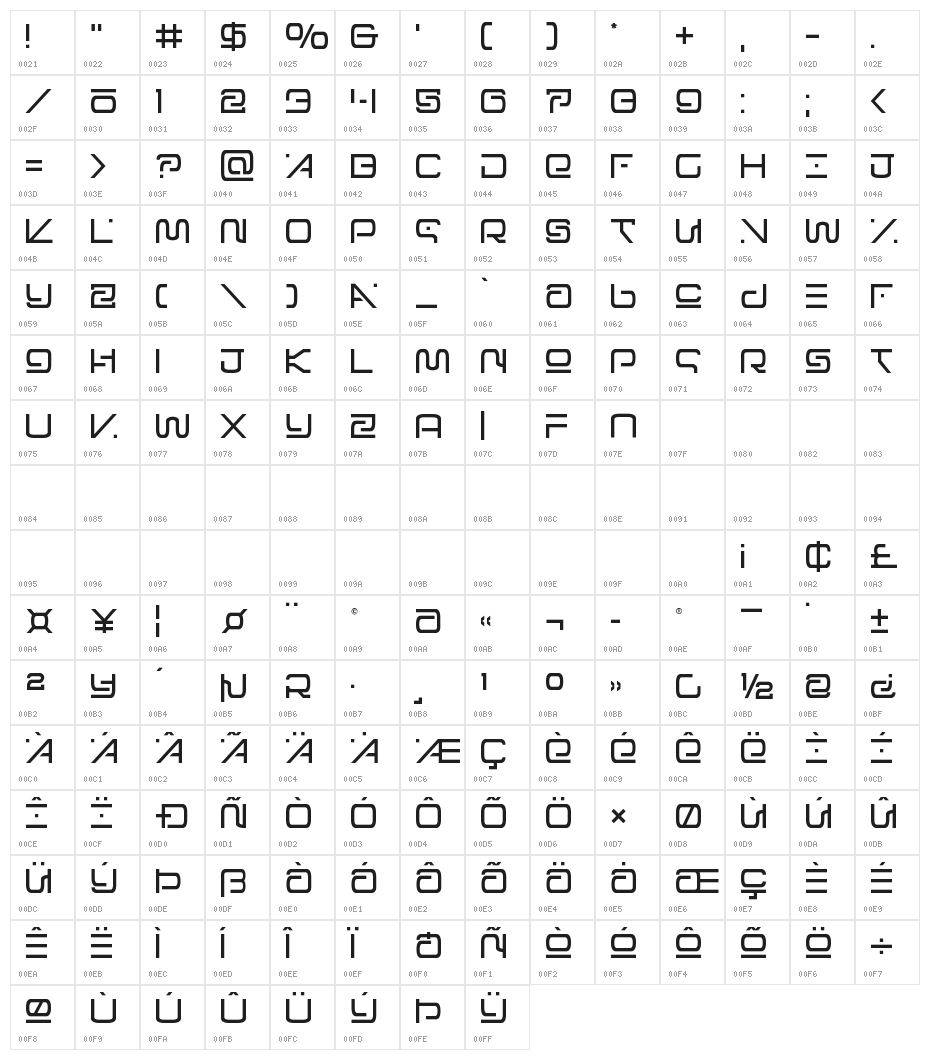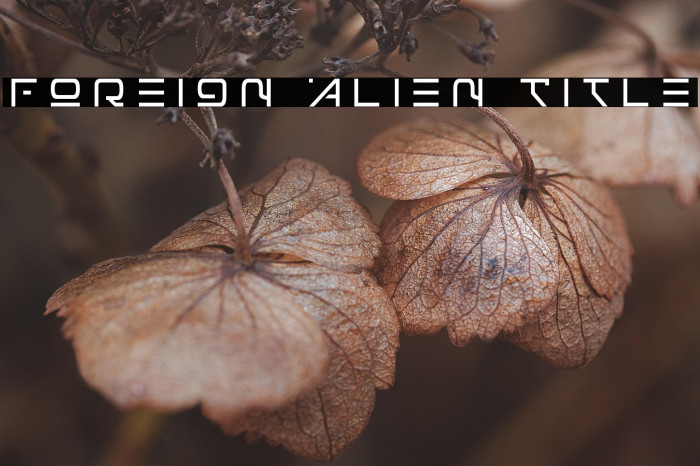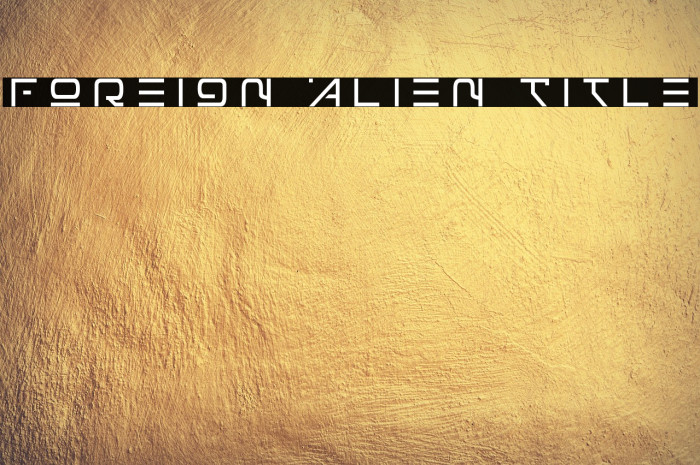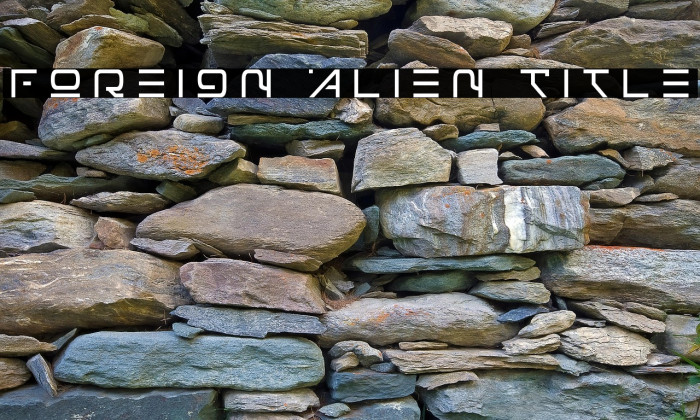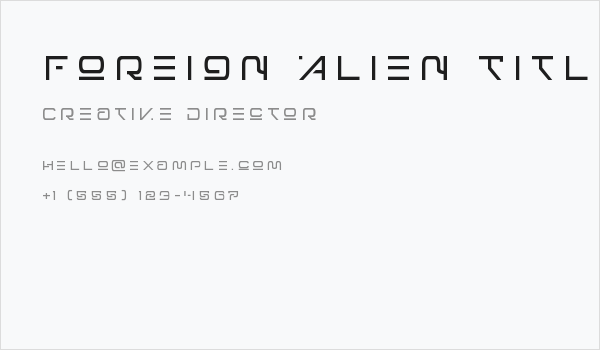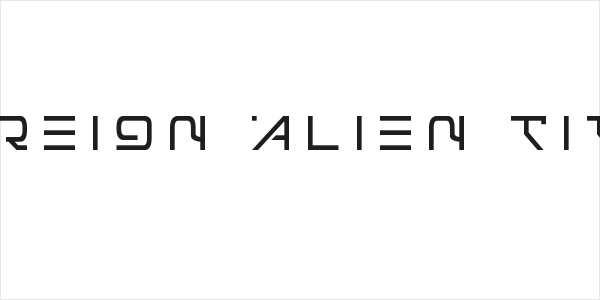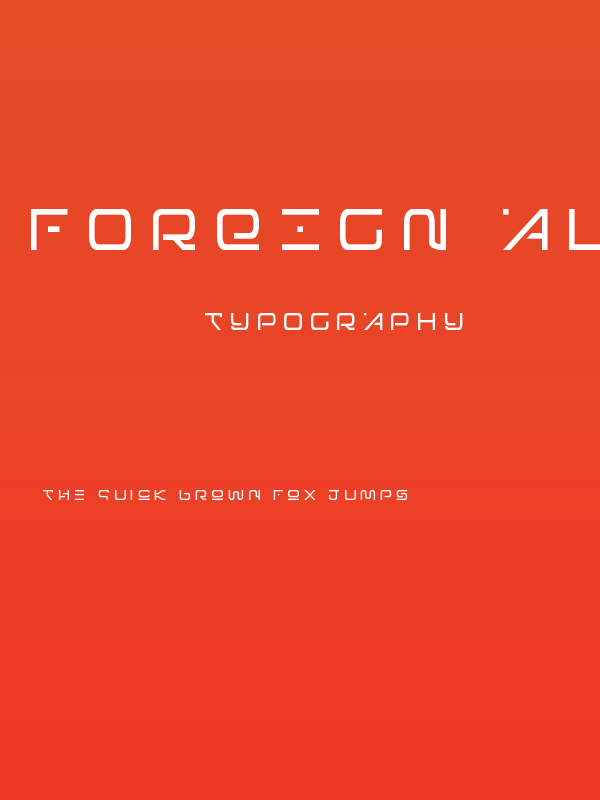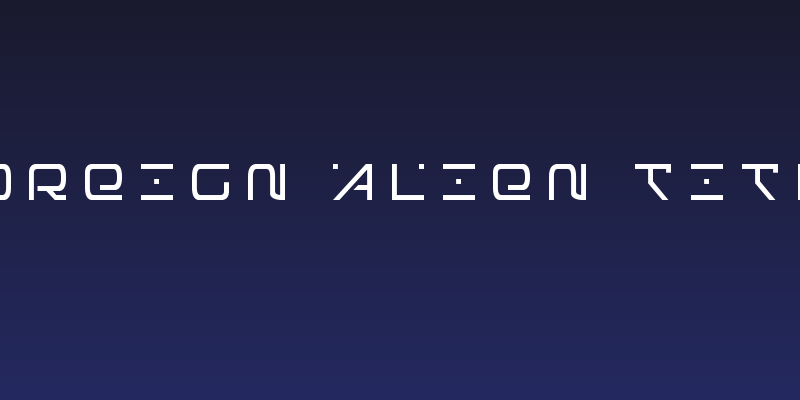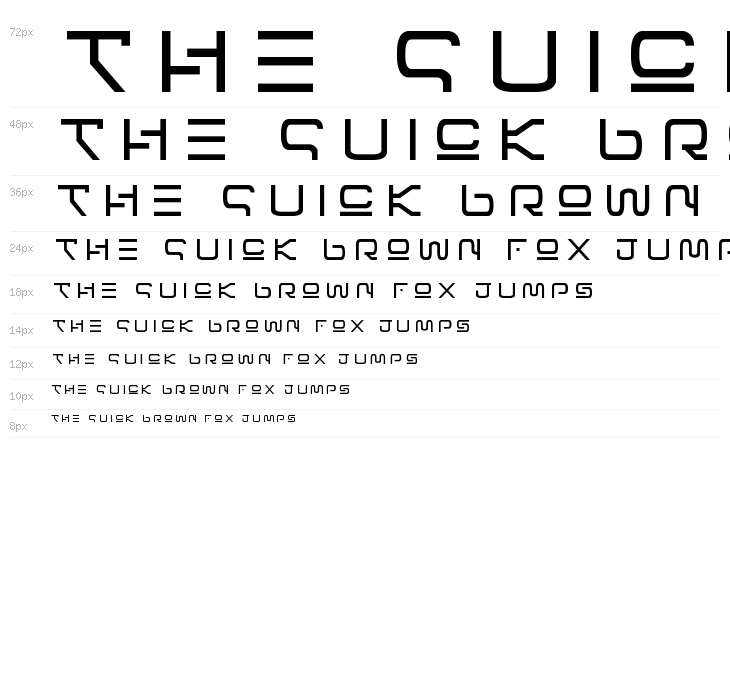
Foreign Alien Title Font
Foreign Alien Title Description
This font features a futuristic and geometric design, characterized by its angular and minimalist letterforms. The uppercase and lowercase letters share a consistent style, with sharp edges and a uniform stroke width that gives it a clean and modern appearance. The numbers and special characters maintain this aesthetic, contributing to a cohesive overall look. The font's unique style is reminiscent of science fiction themes, making it suitable for projects that require a modern and otherworldly feel. Its distinctiveness lies in the way it balances readability with a sense of mystery and innovation.
Proposed ProjectsIdeal for sci-fi movie titles, tech branding, video game interfaces, and futuristic posters.